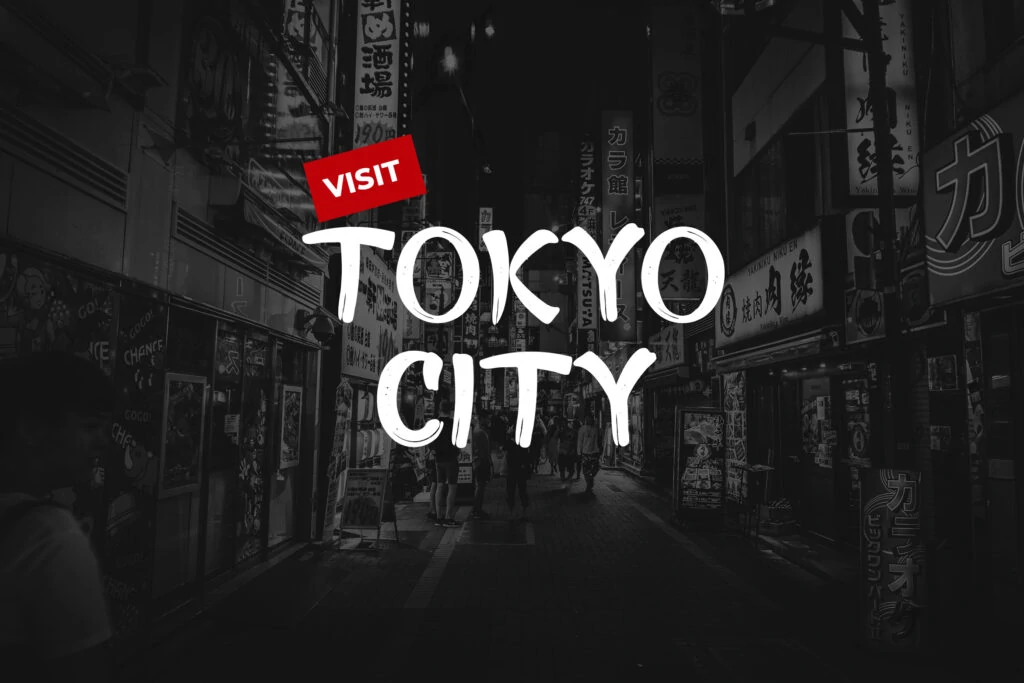
Hiro Misake Brush Japanese Font
Hiro Misake is a brush font from UI Creative that writes Latin capitals the way Japanese ink lettering looks. Each stroke starts heavy and ends in a pointed flick, and the black is broken by dry-brush speckles and bristle gaps, so even typed words keep the texture of a painted sign.
It is a natural fit for Japanese and Asian food: sushi and ramen menus, street food stalls and noodle bars, takeaway packaging and delivery banners, plus travel posters, martial arts and anime-style titles and T-shirts. The previews show “Tuna Sushi” beside a sushi board, “Suki Yaki Street Food” over a ramen bar and “Visit Tokyo City” over a night street.
• Brush capitals only: lowercase keys type the same capitals, and the letters are Latin (A to Z), not Japanese characters
• Numbers 0 to 9 and punctuation such as !, ?, &, @, $ and %, with kerning built in
• No accented letters: words like “Café” or “Señor” come out without their accents